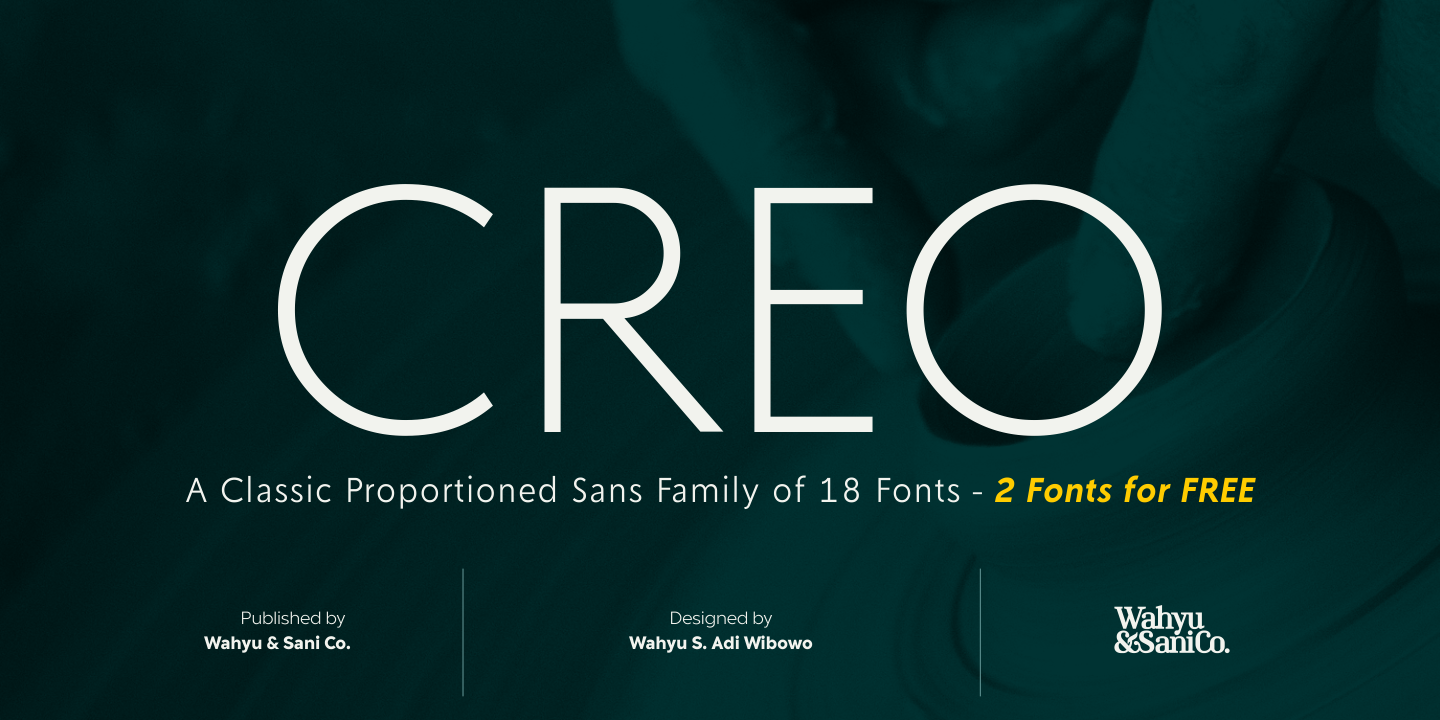
Creo Font is perfect for innovative design studios, creative agency branding, artistic portfolio websites, inspirational maker spaces, contemporary art galleries, forward-thinking startup logos, imaginative educational platforms, and visionary cultural projects. This inspiring typeface excels in creative environments, artistic applications, and any project requiring inventive sophistication that communicates creative vision and innovative thinking through expressive visual innovation.
What makes Creo Font exciting is its remarkable ability to embody creative inspiration and innovative thinking through thoughtfully crafted letterforms that spark imagination and celebrate the creative process with contemporary sophistication. The font features artistically designed characters with creative curves and innovative proportions that evoke feelings of artistic inspiration and forward-thinking vision, making it ideal for brands seeking to establish connections with creative communities and communicate through expressive innovative visual language. Its creative presence ensures immediate recognition of artistic authenticity and innovative excellence.
Creo Font family includes multiple weights and styles: Regular, Bold, Light, Medium, Italic variations, and creative alternates with innovative embellishments and artistic decorative elements. Each family member maintains the distinctive creative character while offering comprehensive design options for innovative campaigns, from inspiring descriptive text to visionary headlines that establish creative authority and artistic credibility through thoughtfully innovative typography.
Whether you're designing creative brand identities or developing inspiring artistic campaigns, Creo Font Free Download provides the perfect typography solution for innovative branding needs. This font transforms ordinary text into inspiring creative statements that communicate artistic vision and innovative sophistication. Design studios and creative entrepreneurs choose this typeface for its ability to convey creative excellence through artistically crafted letterforms that inspire innovation and celebrate the beautiful intersection of artistic vision and contemporary design thinking.